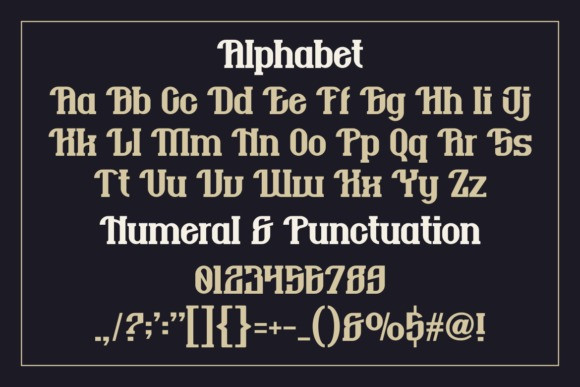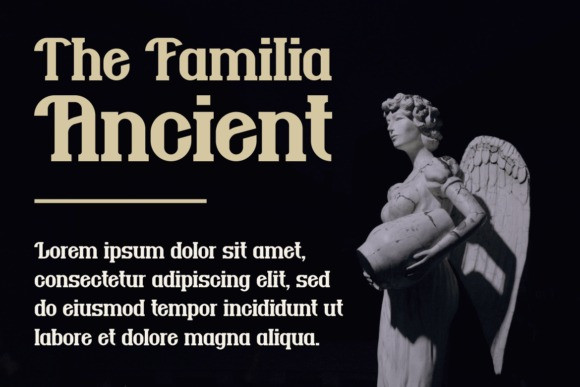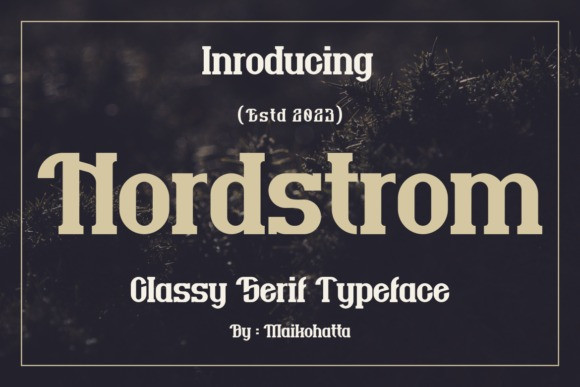
Nordstrom Font
Nordstrom Font is a cool and unique serif font. This font was created for all forms of business and branding such as clothing, logos, skate boards and others according to your needs. Add it to your creative projects and enjoy the results!